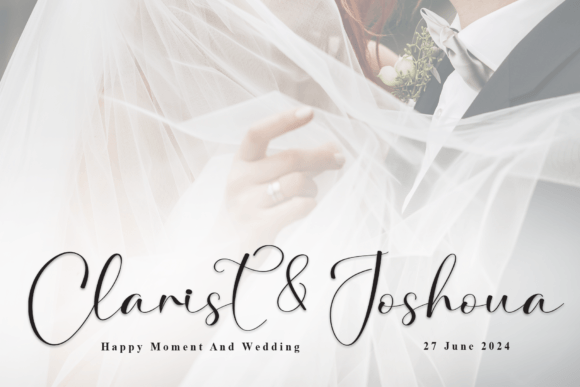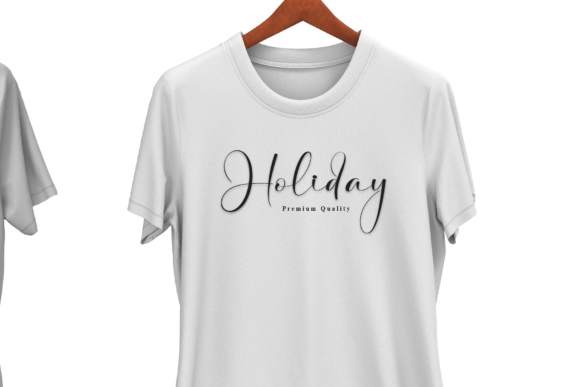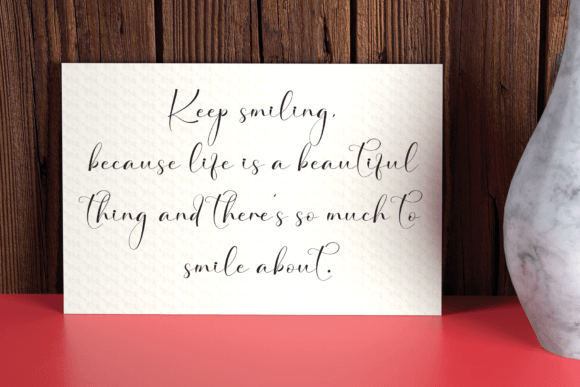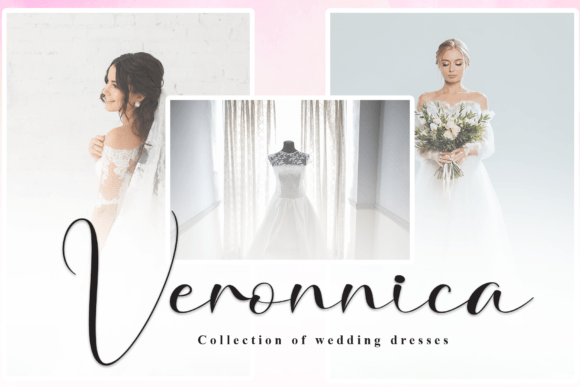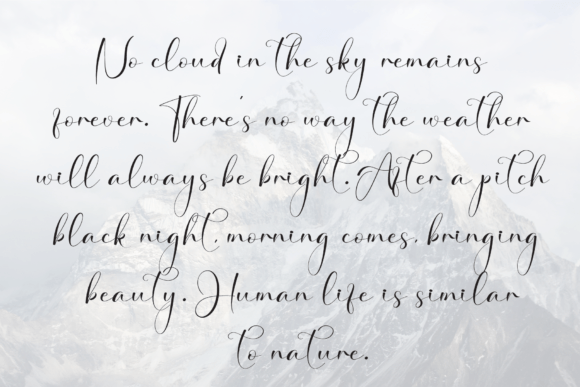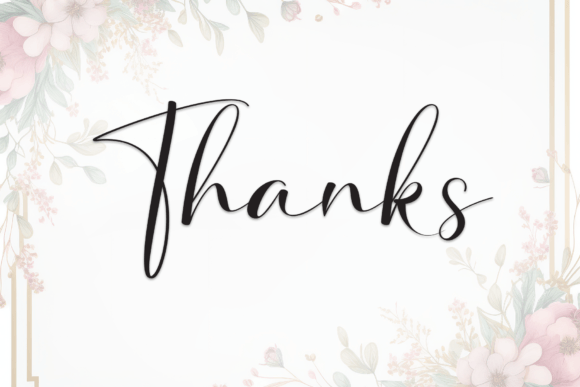
Introduction to Monogram Present Font
Remember the rush of excitement when you stumble upon the perfect design element for your creative project? It’s like finding a hidden treasure that elevates your entire concept. For designers, this moment is a game-changer. And for those seeking a unique touch, the Monogram Present Font is an absolute gem.
This lovely and timeless handwritten font is a design resource that will add a personal and elegant feel to any project. With its high quality and beautiful lettering, it’s perfect for creating eye-catching logos, branding, and quotes. Whether you’re working on a commercial project or a personal endeavor, this font is sure to make your design come alive.
- Unique, elegant design suitable for various creative projects and presentations.
- High-quality font with transparent background, allowing for versatile design applications.
- Monogram Present Font is ideal for creating eye-catching titles, headings, and labels for presentations, posters, and other creative projects.
- Its high-quality design and transparent background make it a popular choice among designers and artists working on various projects.
Honest Review: Monogram Present Font
I recently stumbled upon the Monogram Present Font and was immediately drawn to its unique and elegant design. This font is perfect for any creative project that requires a touch of sophistication and class.
Overall, I’m impressed with the Monogram Present Font’s potential to elevate any design project. With its high quality design and ease of use, it’s definitely worth considering for your next creative project.
- High quality and detailed design
- Wide range of applications
Design Resource for Your Creative Project
Tips for Getting the Most Out of Monogram Present Font
Use the Monogram Present Font on a transparent background to create a clean and elegant design. You can also pair it with other fonts to create a unique and eye-catching combination. Experiment with different font sizes and styles to add depth and interest to your design.
Common Use Cases for Monogram Present Font
The Monogram Present Font is perfect for creating:
- Invitations and gift tags
- Wedding and party decorations